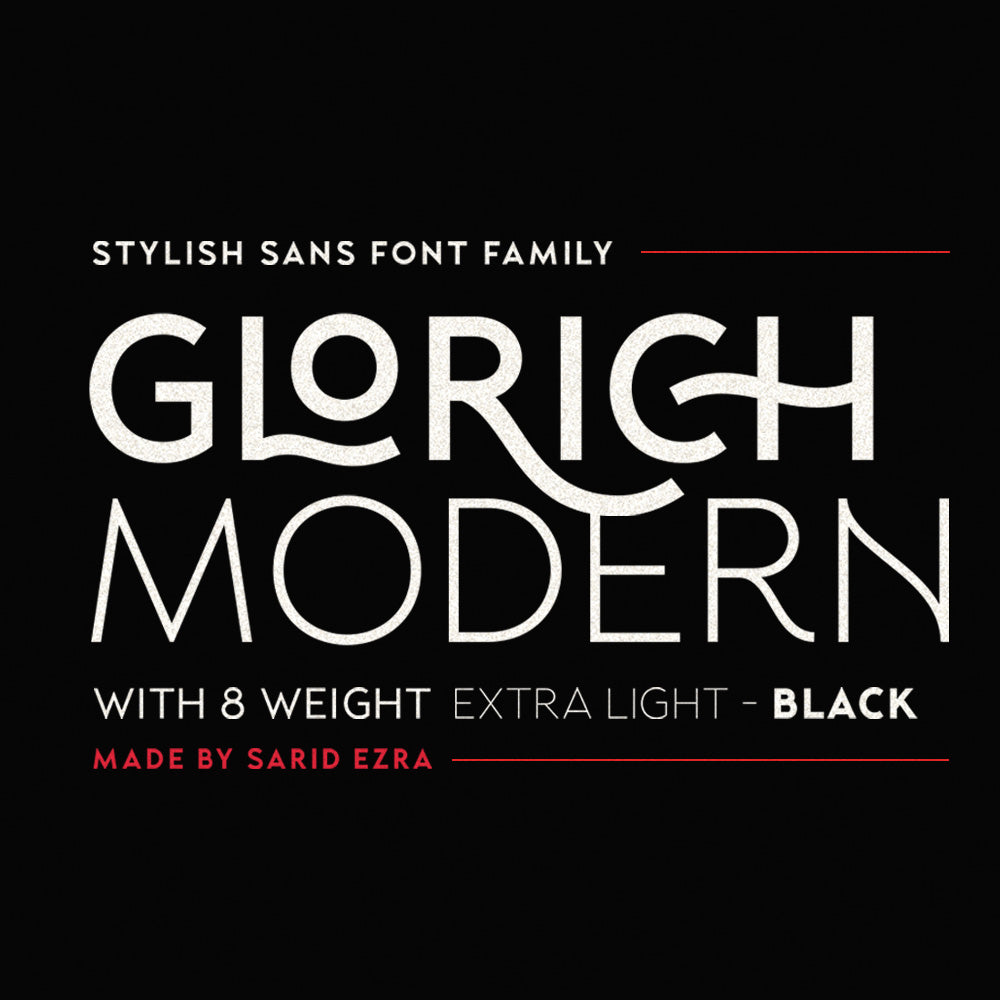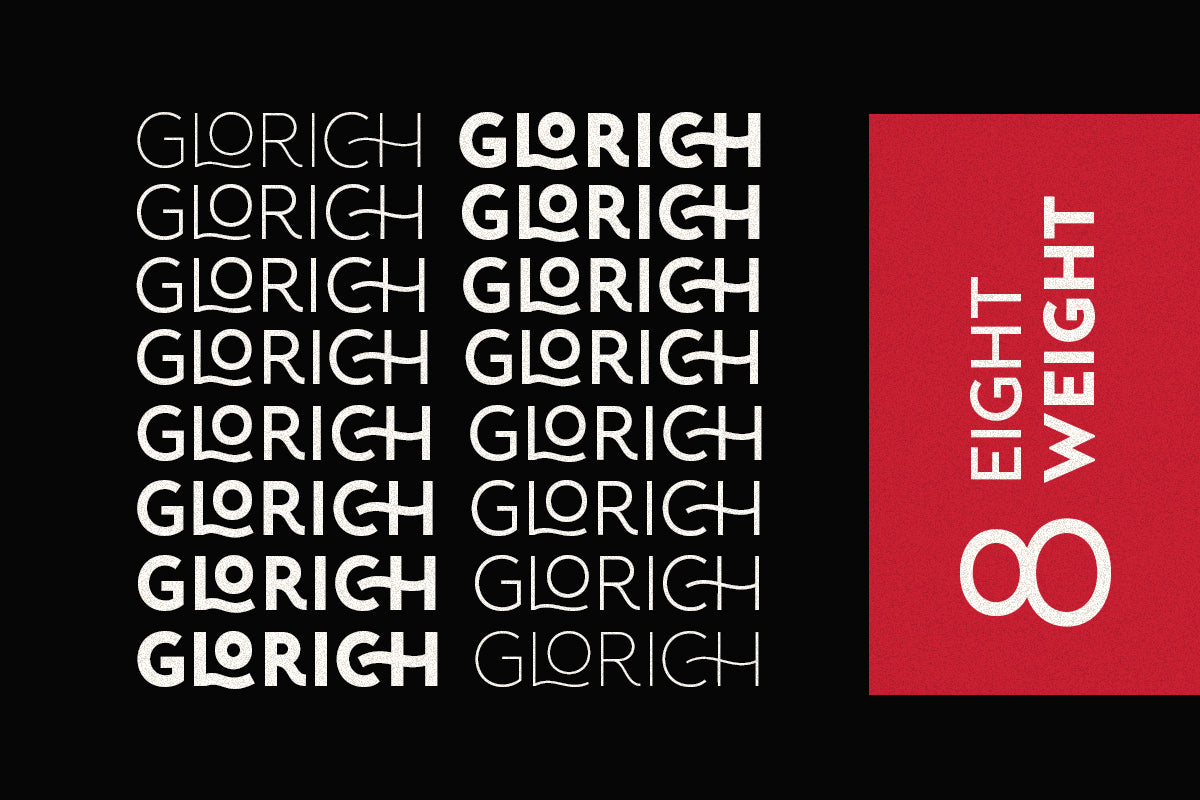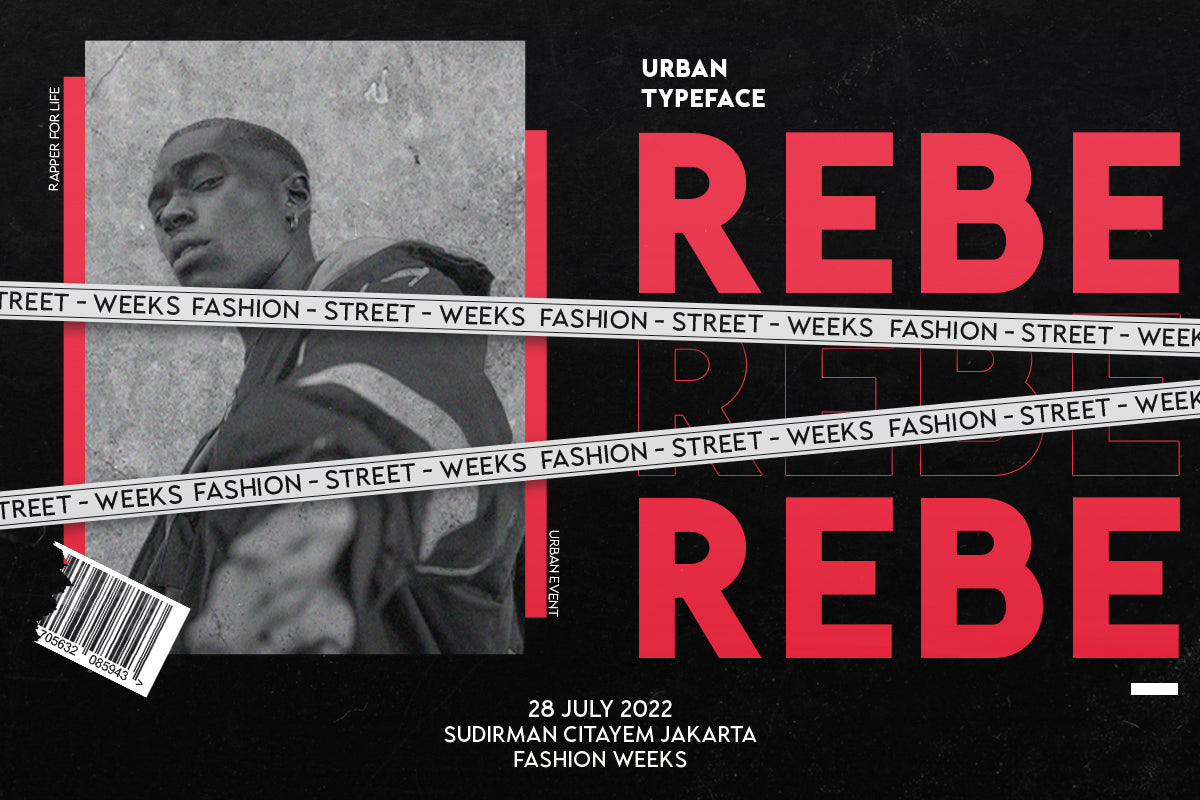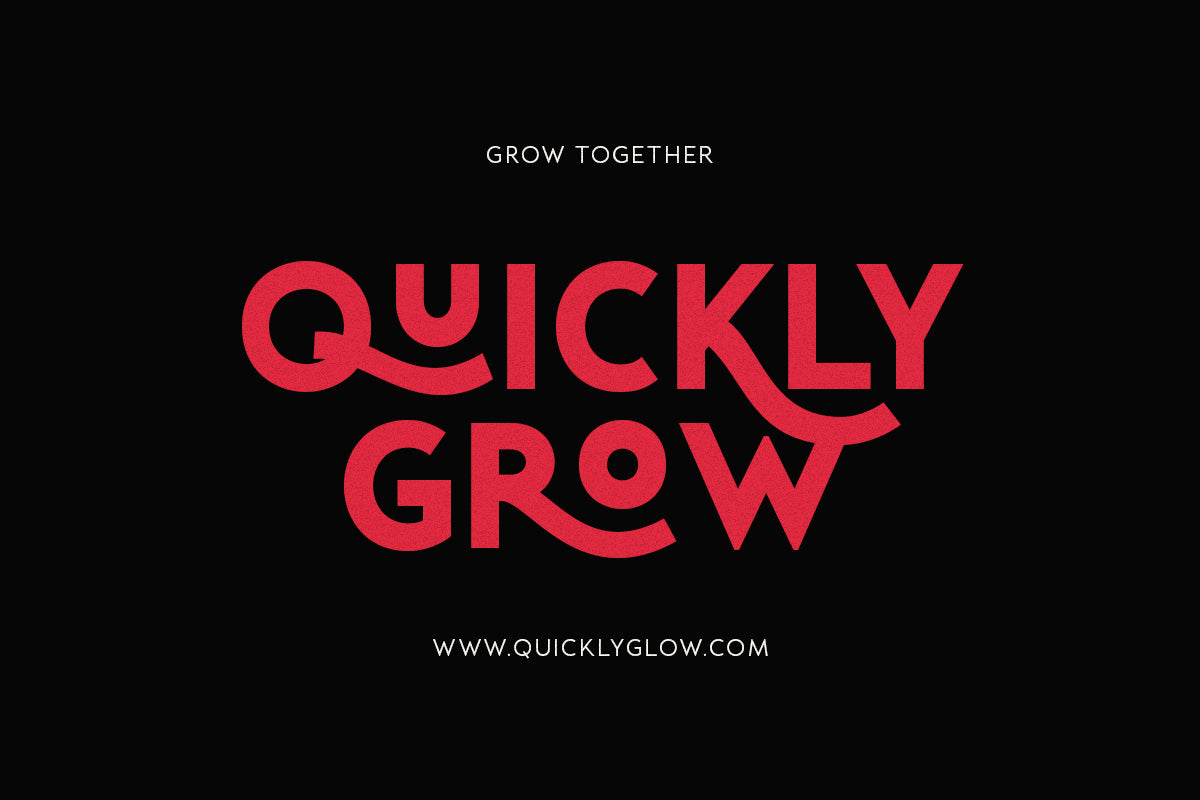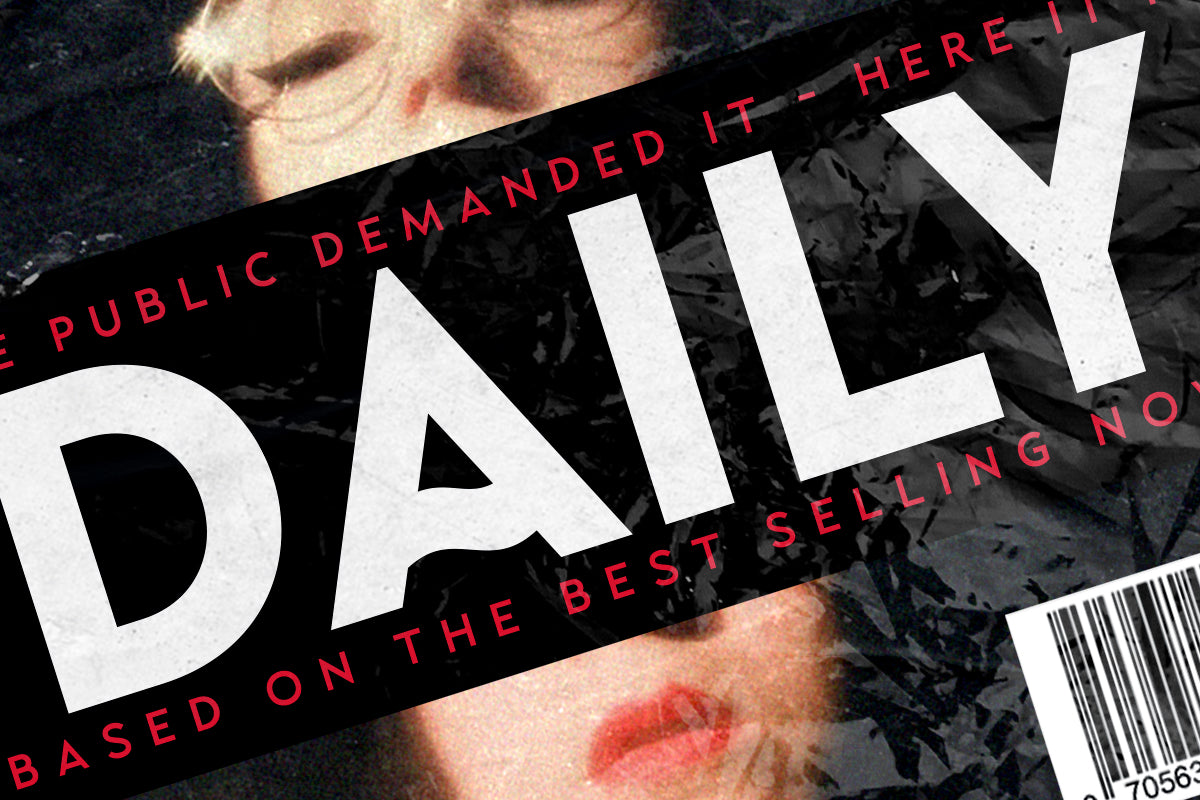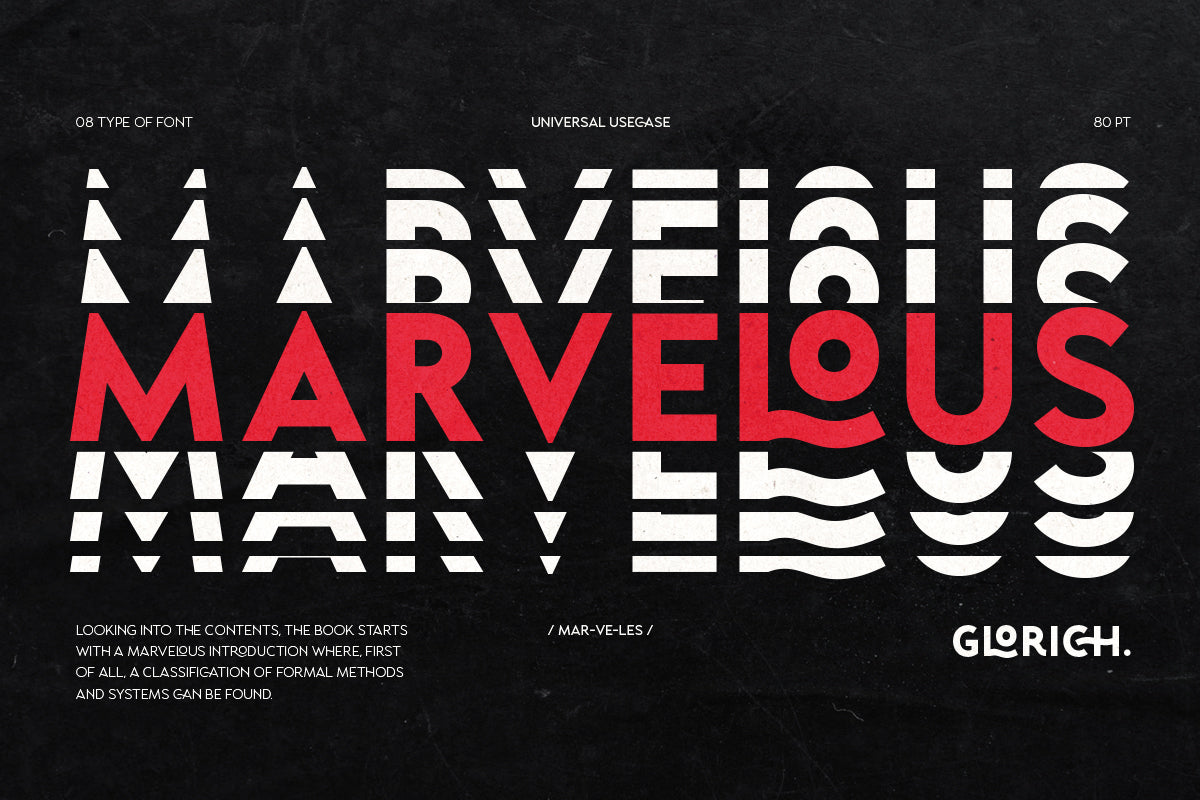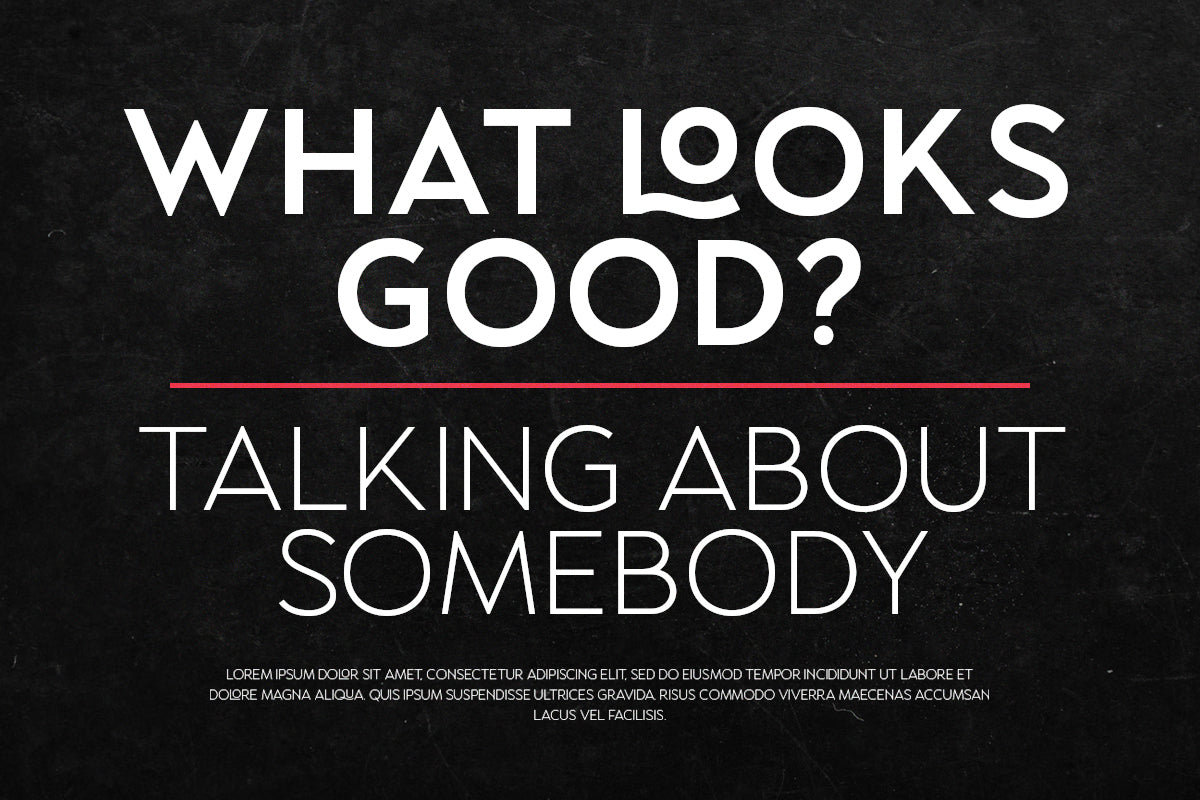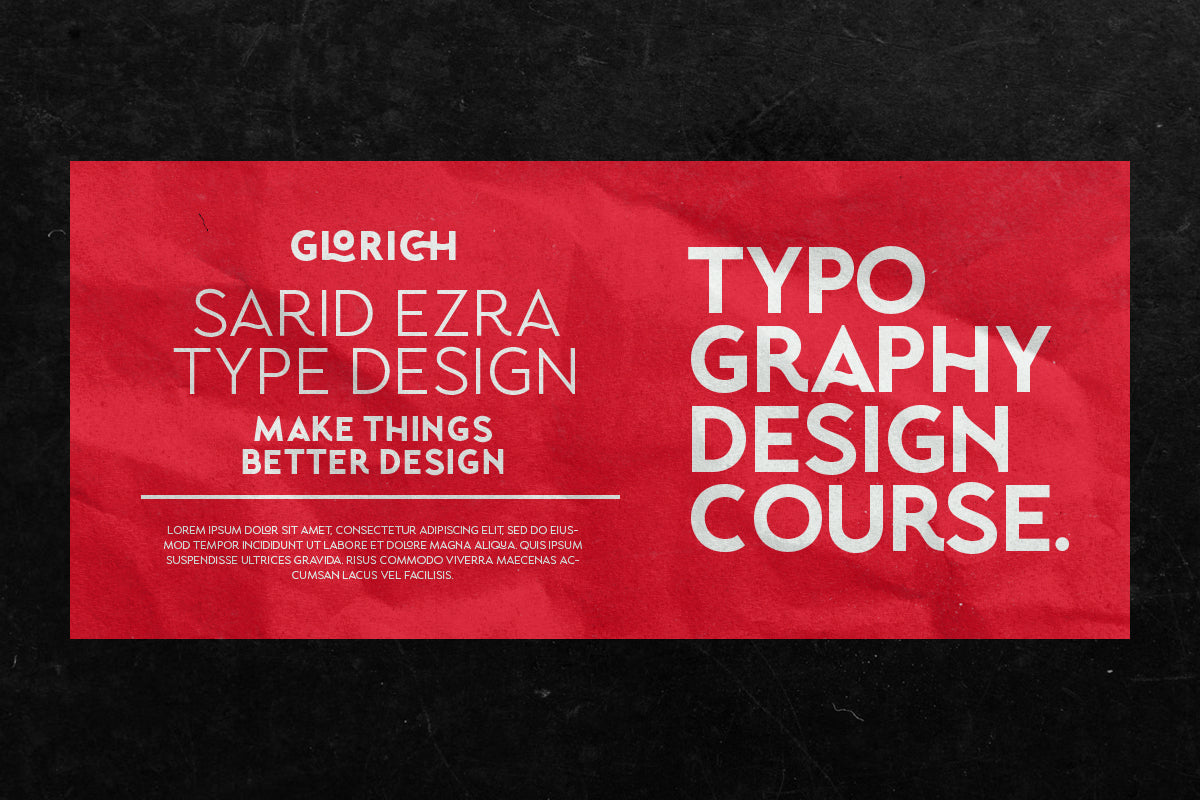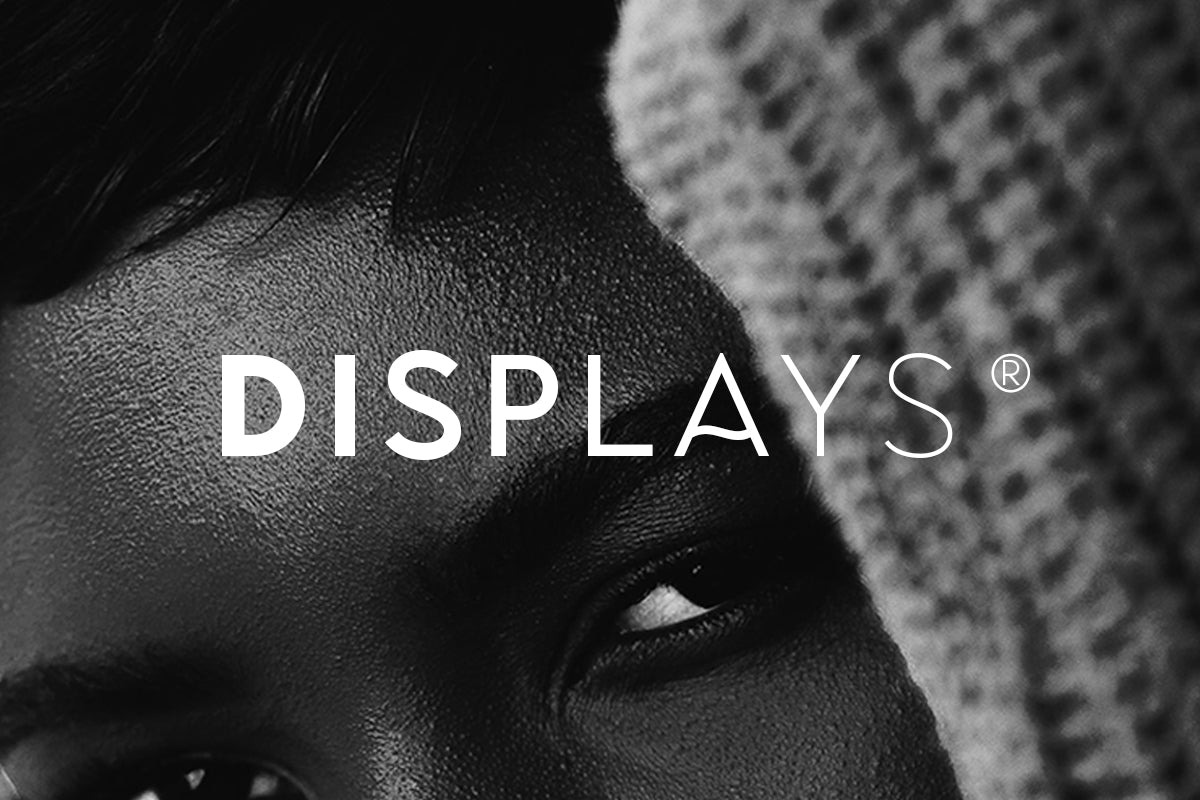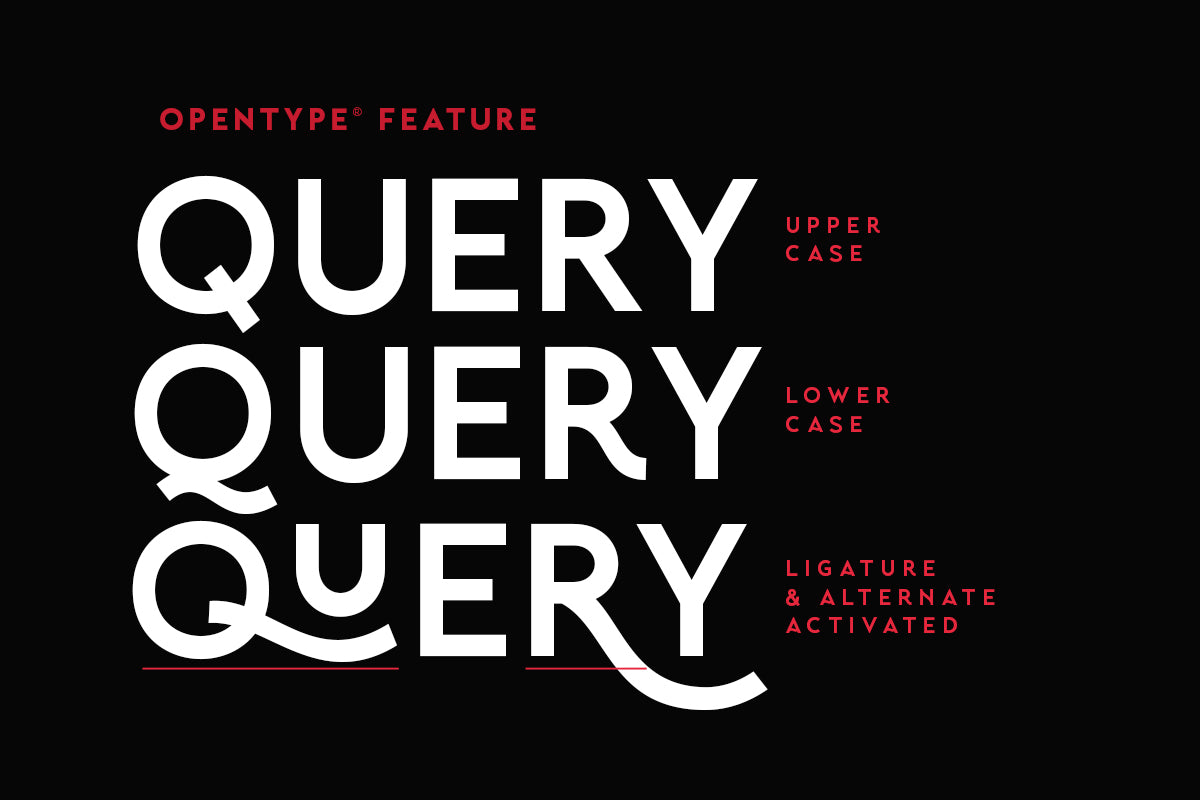
Glorich - Stylish Sans (8 FONTS)
Glorich is a classic and modern all caps sans with ligatures and alternates! The other special thing about this font is for specific alphabet you can find slightly different between the uppercase and lowercase! This font fits in any project and design. You can use it for a tittle, logo, quotes, or become a pairing in any font. You will never go wrong with this font. This font also support multi language!
Glorich - Stylish Sans includes 8 all-caps fonts featuring ligatures and alternates, with distinct variations between uppercase and lowercase letters. This versatile font supports multiple languages and is suitable for a range of design projects.